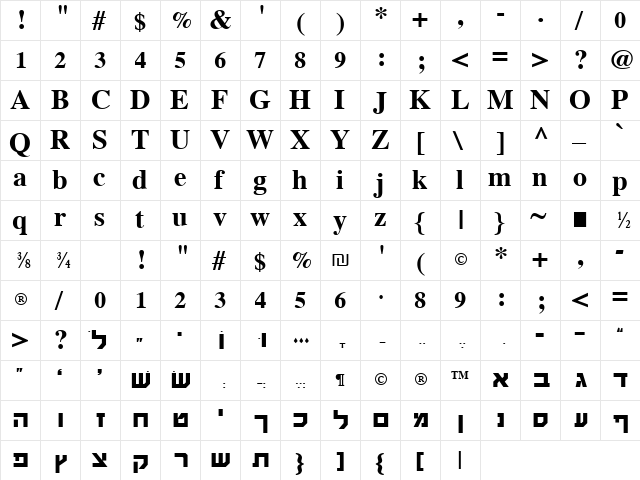
Globes Bold
Design Context for Globes Typeface
Globes is a composed and adaptable typeface that performs quietly and consistently across a wide range of design contexts. Its bold stroke weight gives it real presence on the page.